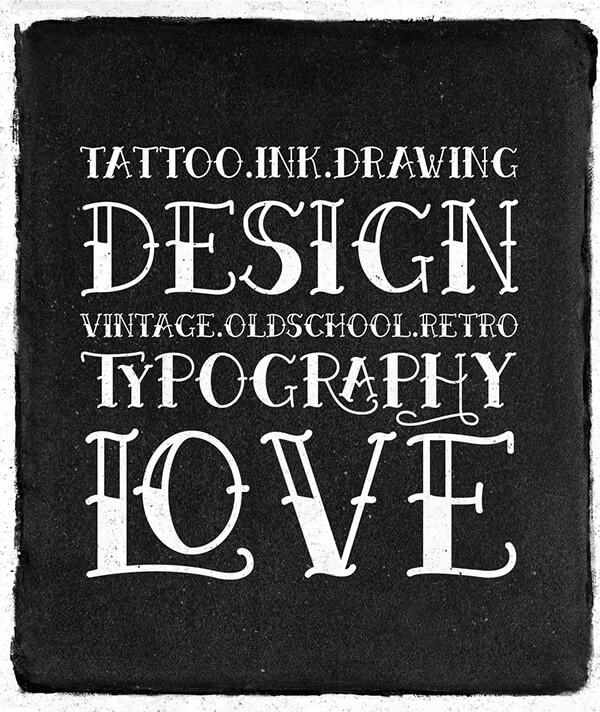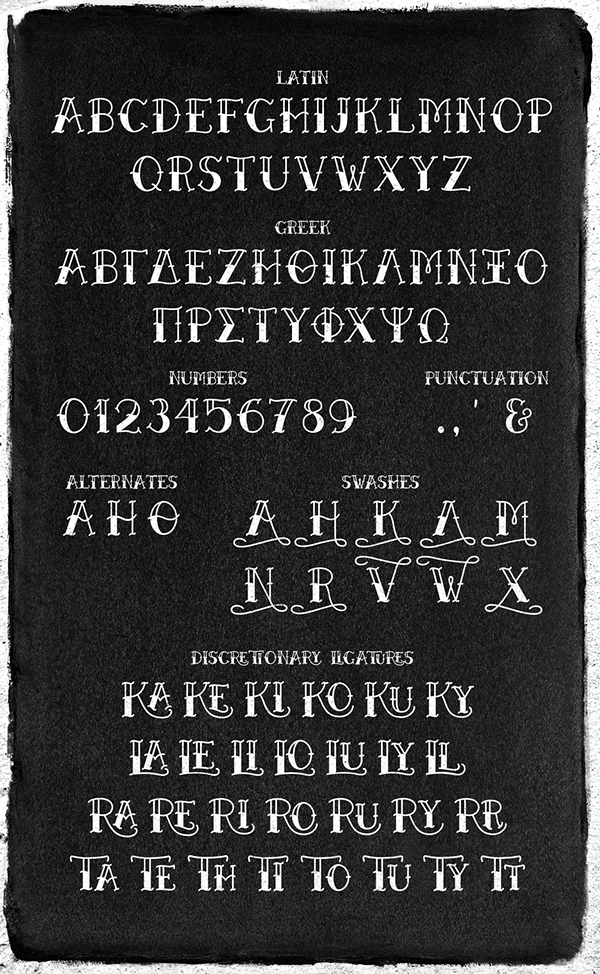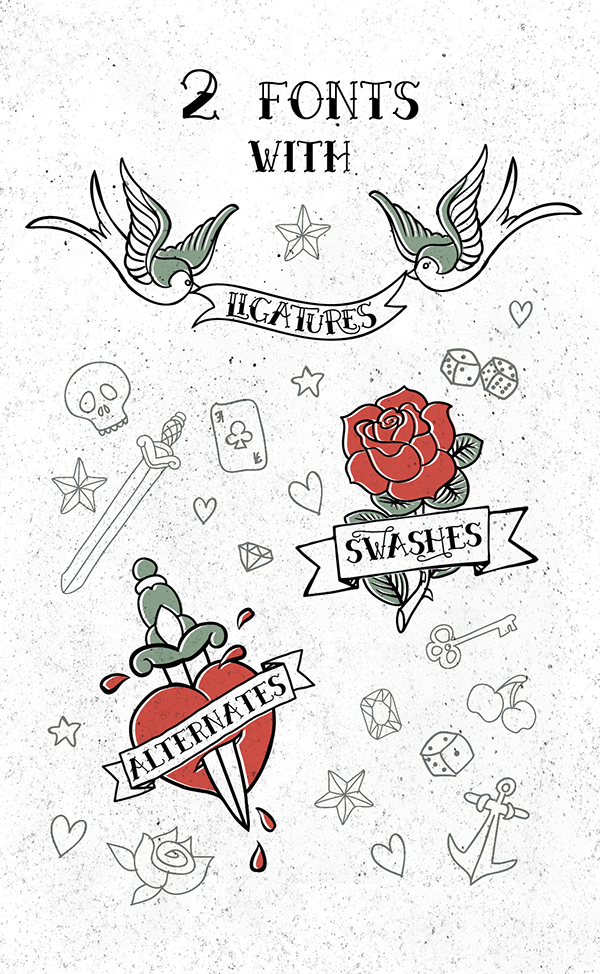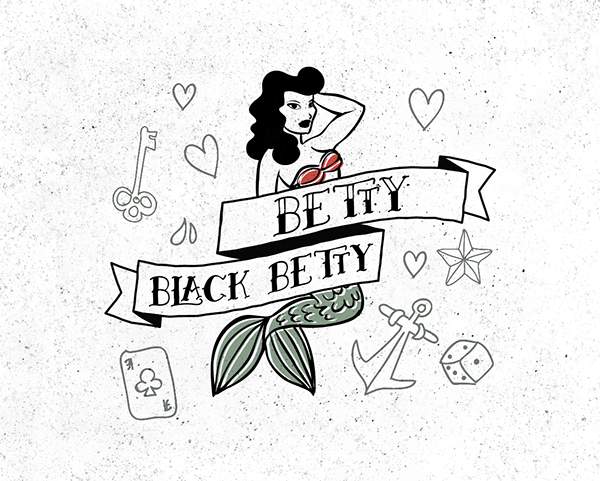
Free vintage Betty typeface Posted on May 10, 2015 /Under Freebies, Typography This is a super cool vintage typeface inspired as the author explains in the old school vintage tattoo art, it’s really a must have resource. by:Anastasia Dimitriadi Download Resource Here Free Betty typeface Share this: Share on Facebook (Opens in new window) Facebook Share on Pinterest (Opens in new window) Pinterest Share on Threads (Opens in new window) Threads More Share on X (Opens in new window) X Share on LinkedIn (Opens in new window) LinkedIn Like this:Like Loading… Related